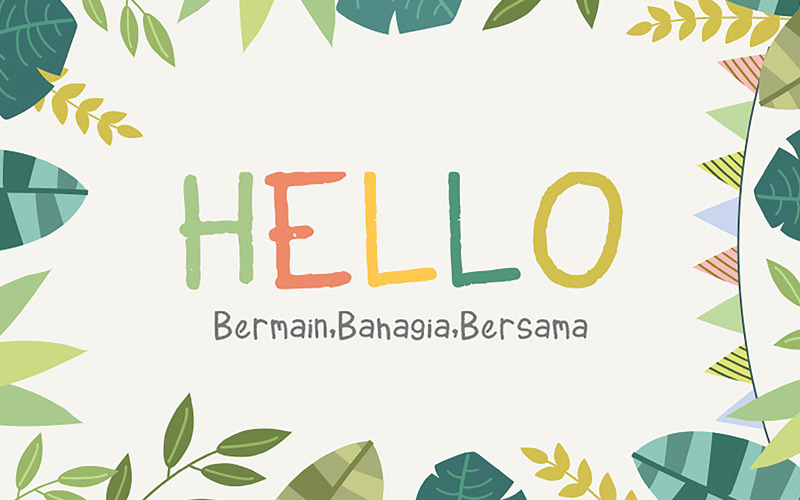
Sekolah Creative Handwritten Font
Sekolah Fonts is perfect for branding projects, logo, wedding designs, social media posts, advertisements, product packaging, product designs, label, photography, watermark, invitation, stationery and any projects that need handwriting taste.